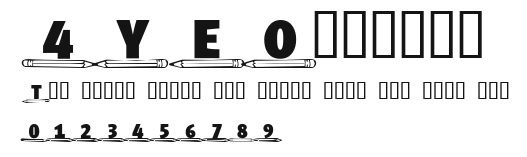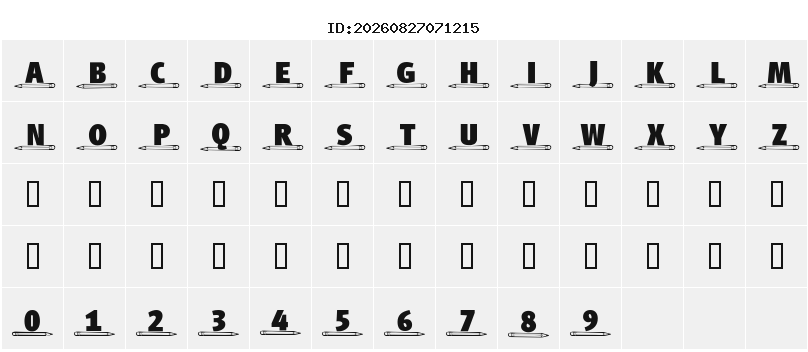
• Font Name: 4YEOschool
• Full Font Name: 4YEOschool
About 4YEOschool.ttf
4YEOschool.ttf is a modern, elegant sans-serif font designed for ultimate readability and visual harmony. Perfect for branding, headlines, web design, and print materials.